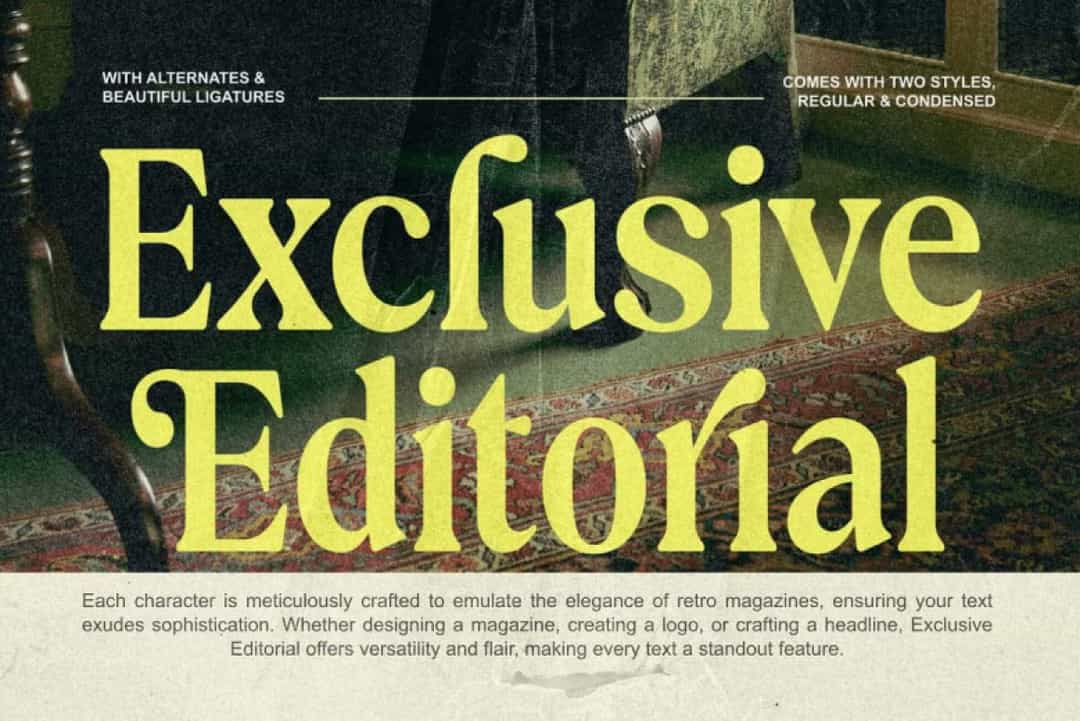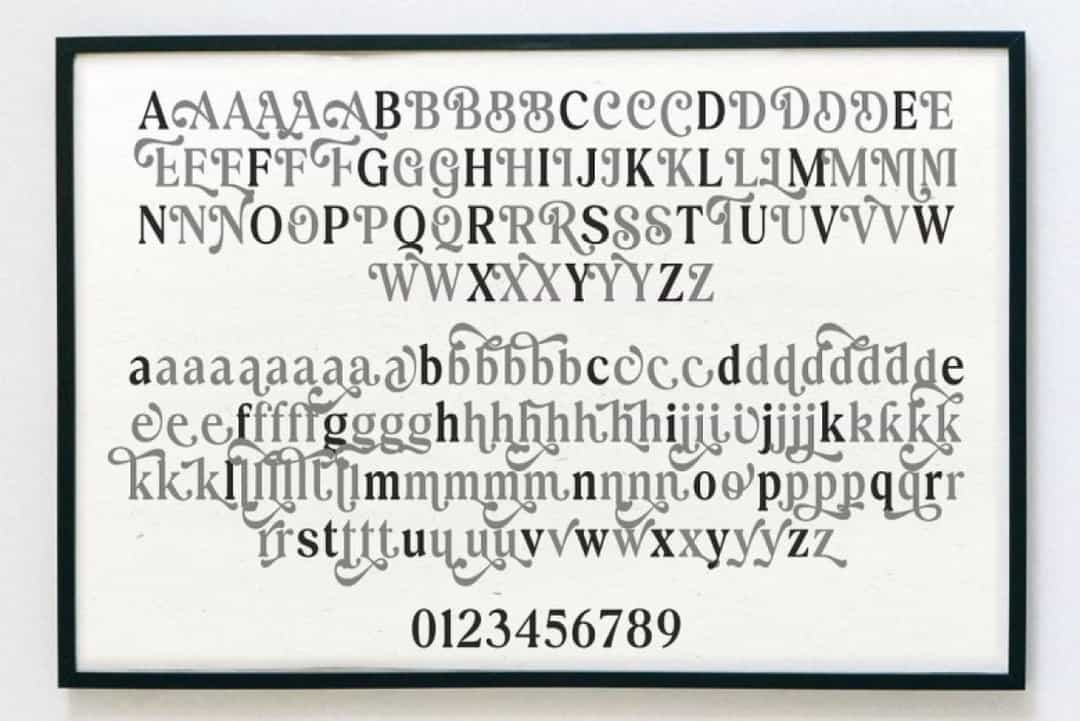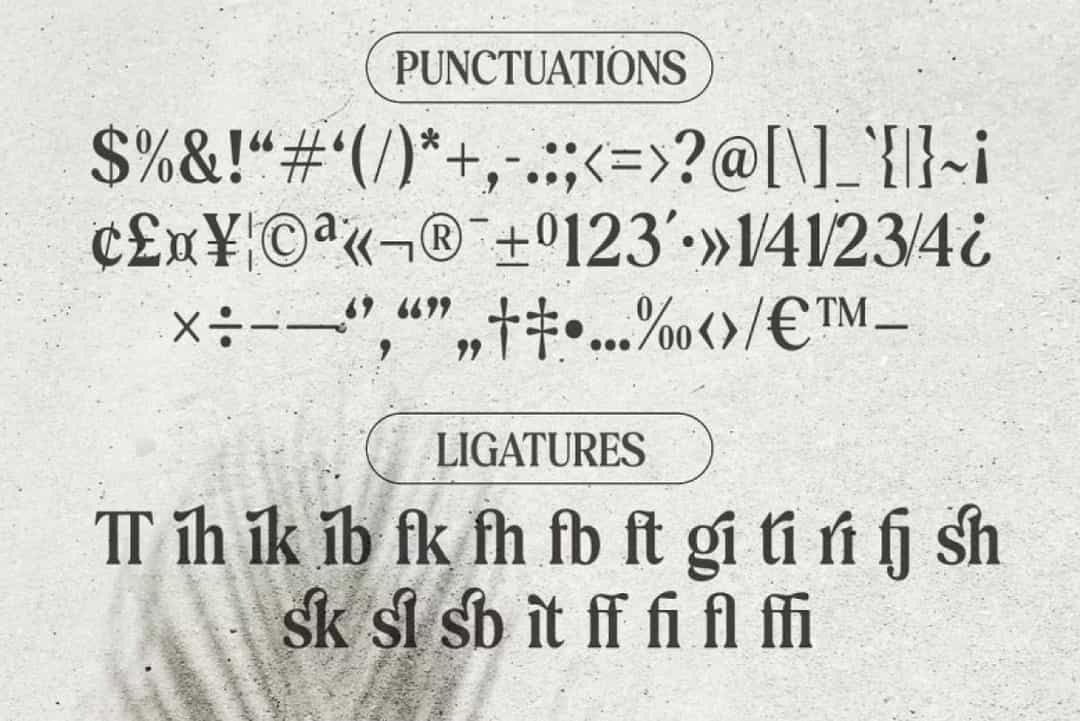
Exclusive Editorial is a serif font that is made in retro style and will remind you of the 80s. It is also one that will for sure set your design apart from the rest. A nice mix of the regular and Condensed styles that work well at both large and small scales.